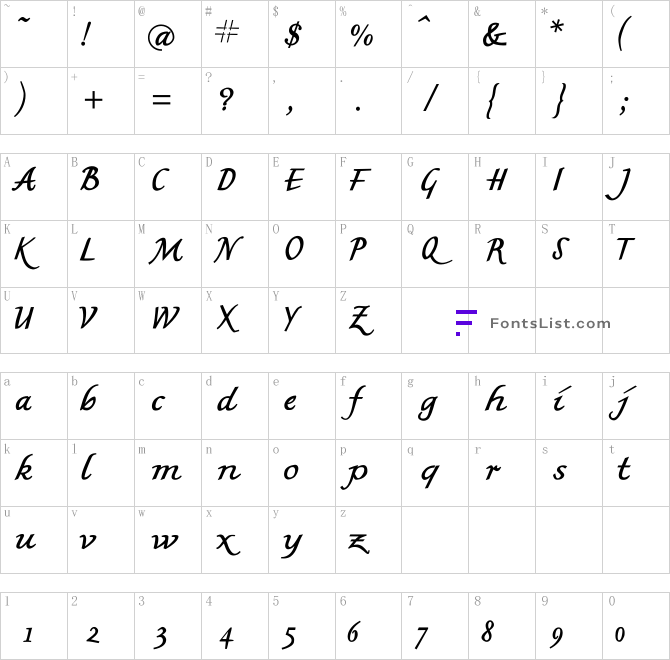
- Font Name:AIBritishWriting
AIBritishWriting.ttf is a very beautiful artistic font, AIBritishWriting.ttf is widely used in the design and printing of various books and pictures,AIBritishWriting.ttf has a strong visual impact,AIBritishWriting.ttf is a commonly used font in newspapers, magazines and books, and is used in posters, e-commerce Poster design, store design, logo design, font design and other fields.AIBritishWriting.